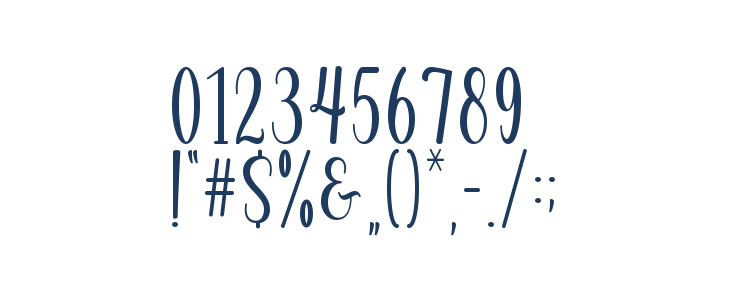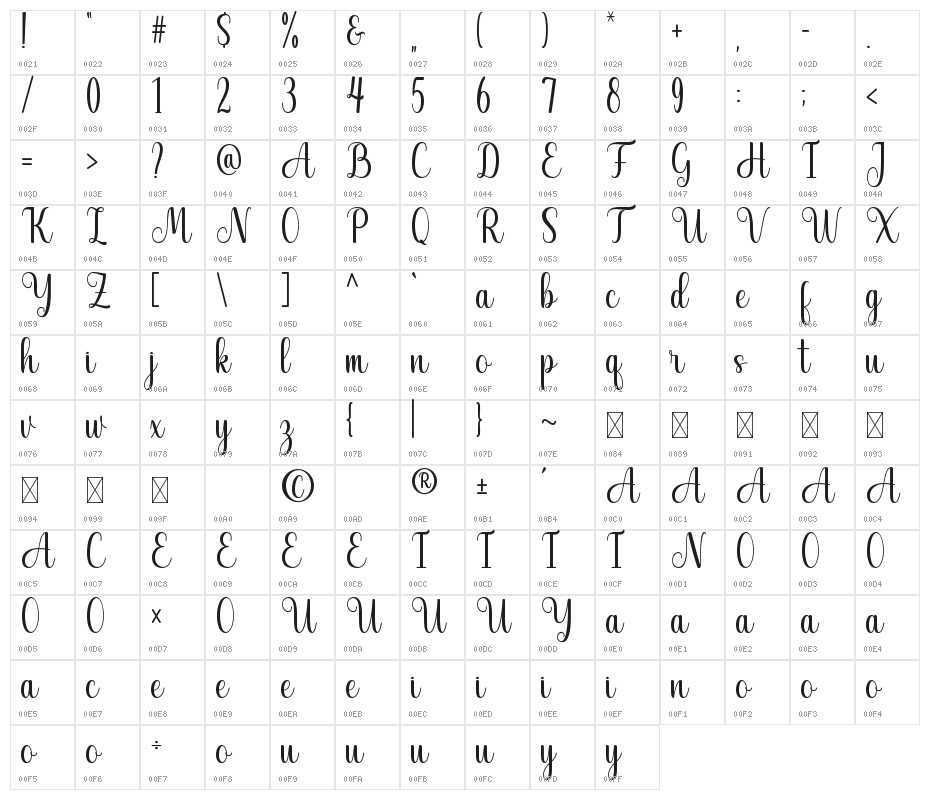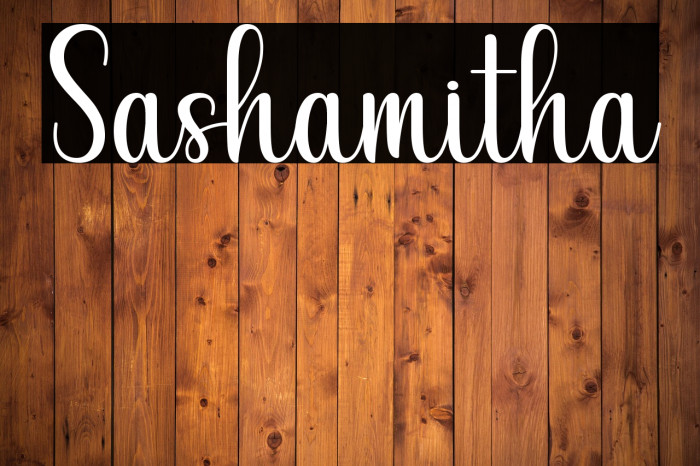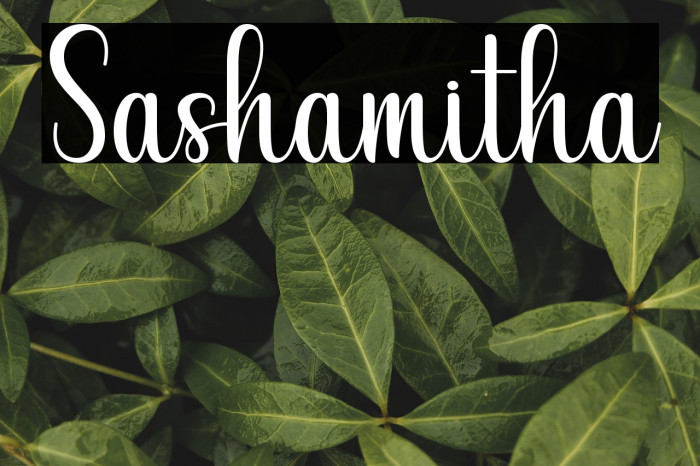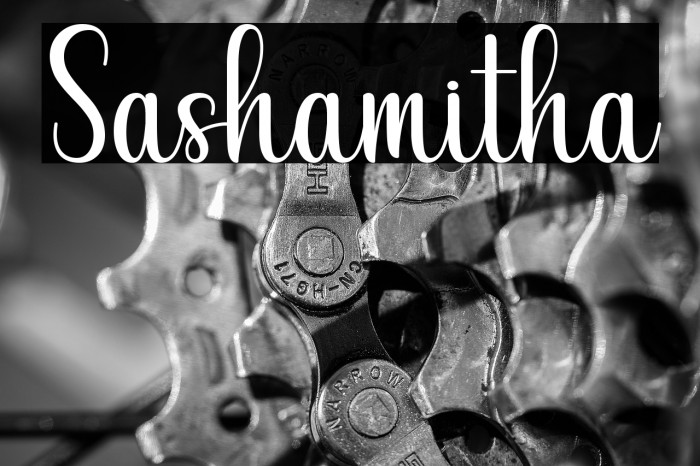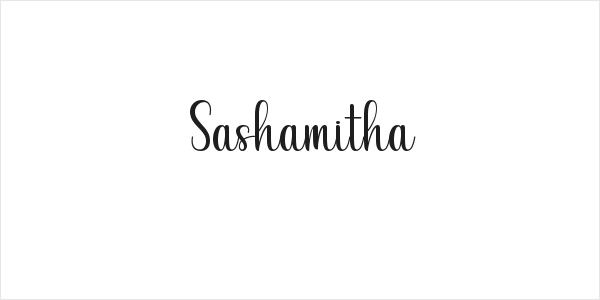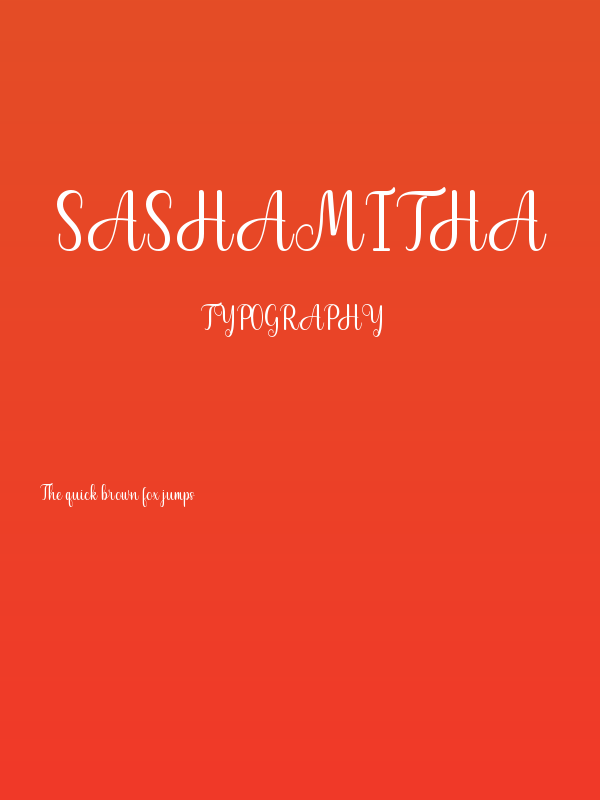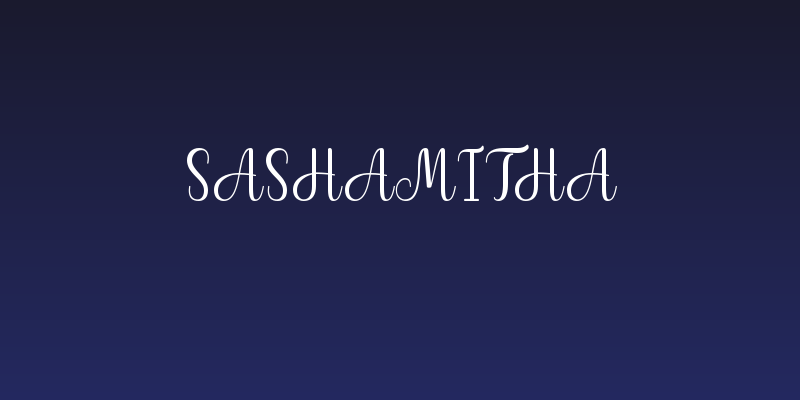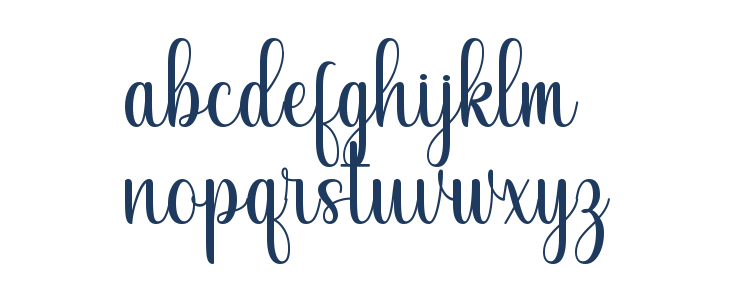
Sashamitha Font
Sashamitha Description
This font features a playful and elegant script style with a handwritten touch. The uppercase letters are characterized by smooth, flowing curves and a slight slant, giving them a dynamic and lively appearance. The lowercase letters maintain a consistent style, with rounded forms and a harmonious flow, making them highly legible. The numerals and special characters are designed to match the overall aesthetic, with a whimsical yet sophisticated look. This font is perfect for adding a personal and creative touch to any project, while maintaining readability and style.
| Proposed Projects | Ideal for wedding invitations, greeting cards, branding, and social media graphics. |